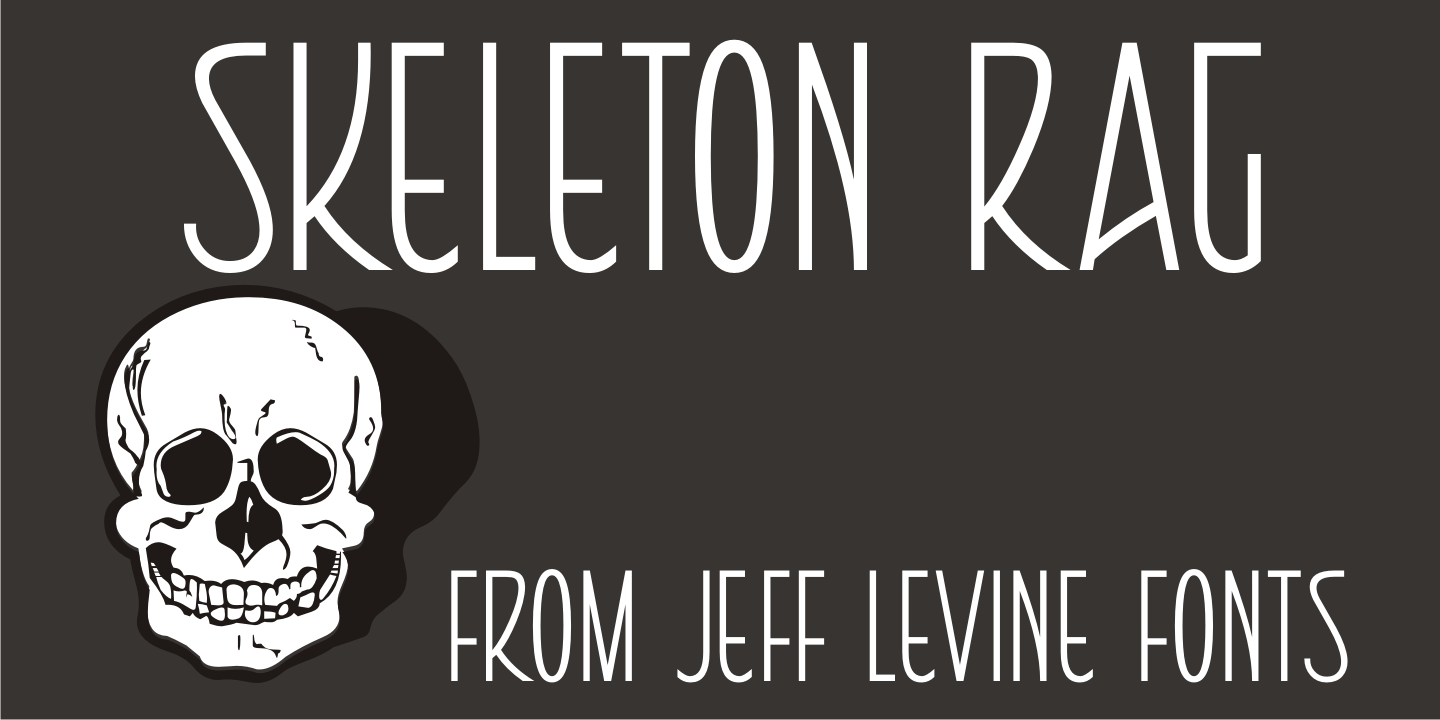
Skeleton Rag
The early 1900s contributed many unusual novelty songs in the ragtime style which was the popular musical craze of the time.
Art Nouveau lettering on the cover of sheet music for the 1911 song 'The Skeleton Rag' (by Edward Madden and Percy Wenrich) is both the lettering inspiration and namesake for Skeleton Rag JNL.